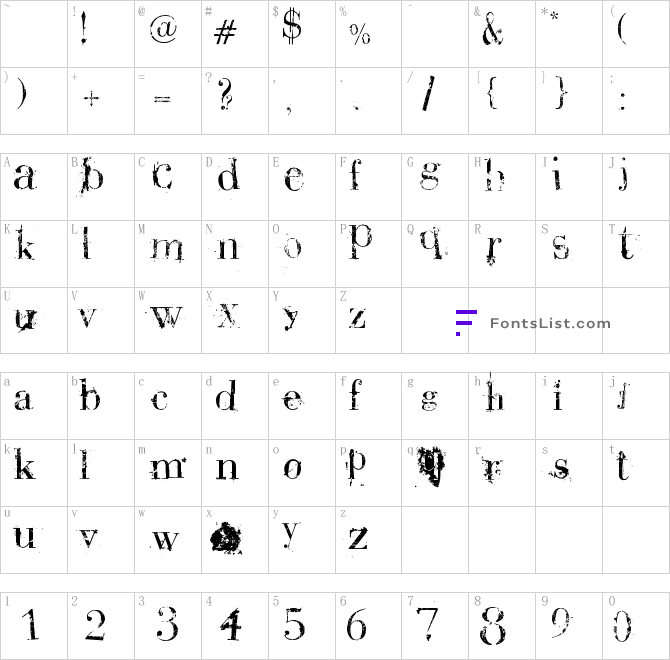
• Font Name:PlAGuEdEaTH
• Subfamily:PlAGuE dEaTH
• Full Name:Bauer PlAGuE dEaTH
• PostScript:PlagueDeath
Bauer-PlAGuE-dEaTH.ttf is a very beautiful artistic font, Bauer-PlAGuE-dEaTH.ttf is widely used in the design and printing of various books and pictures,Bauer-PlAGuE-dEaTH.ttf has a strong visual impact,Bauer-PlAGuE-dEaTH.ttf is a commonly used font in newspapers, magazines and books, and is used in posters, e-commerce Poster design, store design, logo design, font design and other fields.Bauer-PlAGuE-dEaTH.